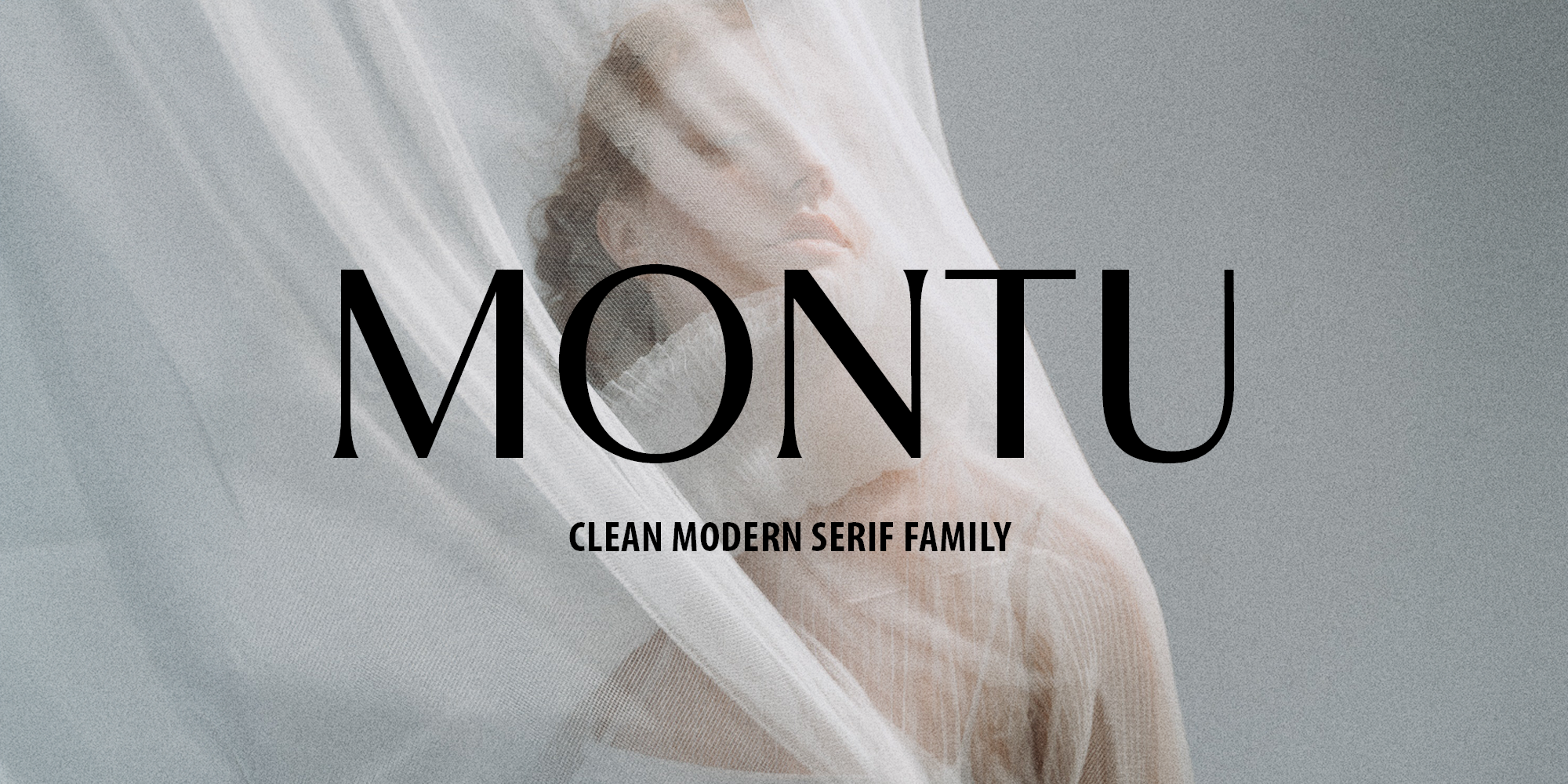
Montu Font is perfect for ancient history museum exhibits, Egyptian-themed restaurant branding, archaeological publication layouts, mythology-inspired game designs, cultural heritage center signage, adventure tourism marketing, historical documentary titles, and mystical entertainment venue promotions.
Montu Font is exciting because it channels the magnificent power of ancient Egyptian civilization with its bold, commanding letterforms that echo the strength of pharaonic monuments and the mystery of hieroglyphic inscriptions. The typeface embodies the eternal grandeur of the Nile Valley, creating an immediate sense of historical majesty and timeless authority that transports viewers to the age of pyramids and pharaohs.
Montu Font family includes Regular, Bold, Light, and Condensed weights, complemented by hieroglyphic-inspired decorative elements and ancient symbol variants, providing designers with powerful typography tools for creating communications that honor Egyptian heritage while commanding contemporary attention.
Whether you're developing an archaeological museum's exhibition materials, designing historical education content, or creating adventure-themed entertainment branding, Montu Font Free Download offers unmatched historical authenticity and dramatic impact. This remarkable typeface perfectly balances ancient Egyptian design principles with modern readability requirements, ensuring your communications resonate with audiences fascinated by one of humanity's greatest civilizations. The font's monumental character structure and authoritative presence make it particularly effective for brands that emphasize discovery, adventure, and the enduring power of ancient wisdom. Cultural institutions and entertainment companies consistently choose Montu Font when projects require typography that communicates mystery, power, and the kind of epic grandeur that defined ancient Egypt, making it essential for historical branding, adventure tourism marketing, and any application where dramatic typography can evoke the awe-inspiring legacy of pharaonic civilization and the timeless fascination with Egypt's magnificent monuments that continue to captivate the world.